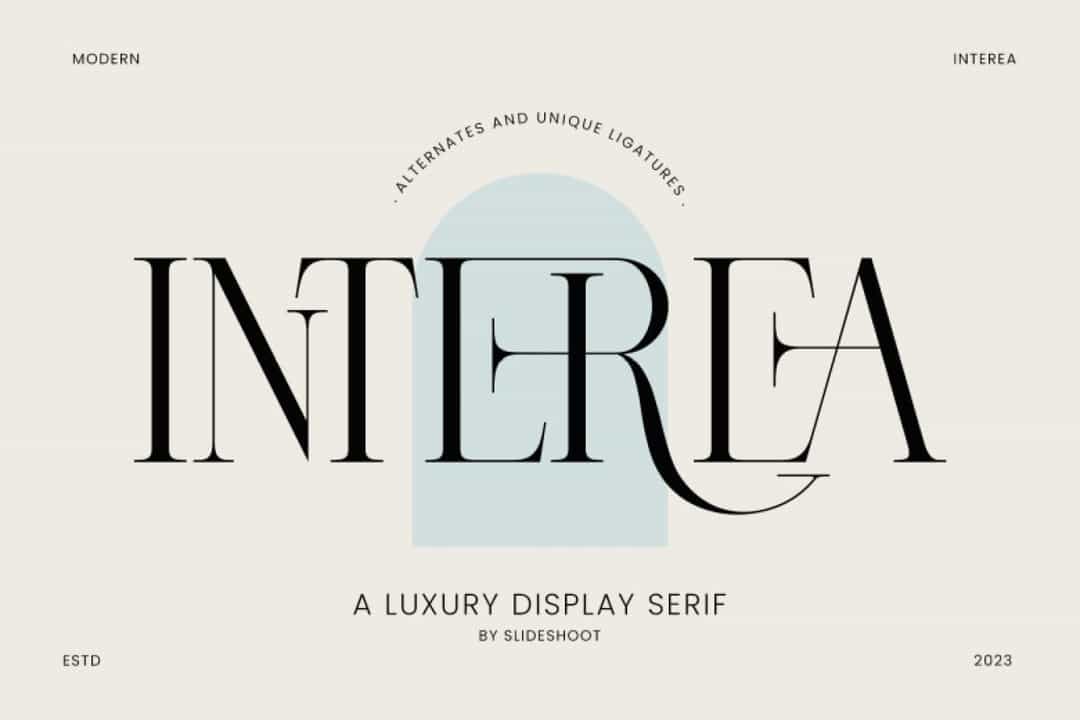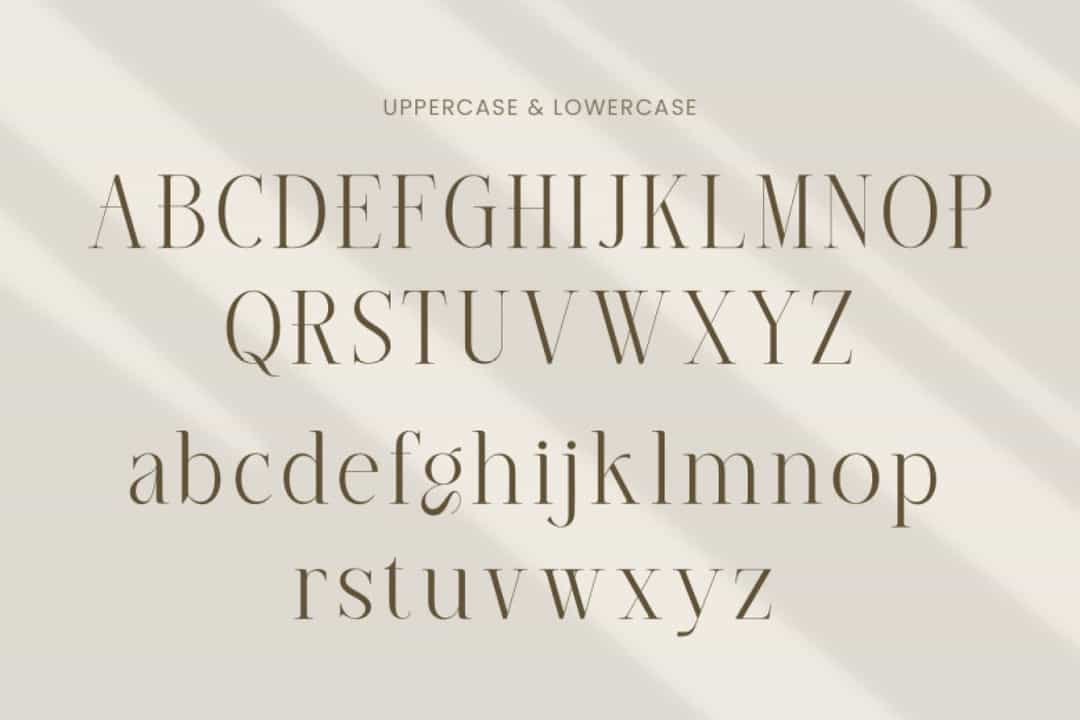
Interea is a balanced, smooth, elegant and stylish serif font. It has its own charmed manner. It is the perfect choice for invitation card designs, corporate logos, movie titles, movie names, business cards, book titles, brand names and so on. Interea Serif is a refined and elegant serif font. Its elegant alternates and ligaturs make this font perfect for any project.